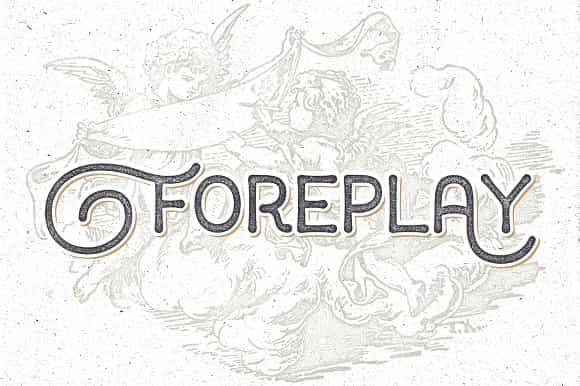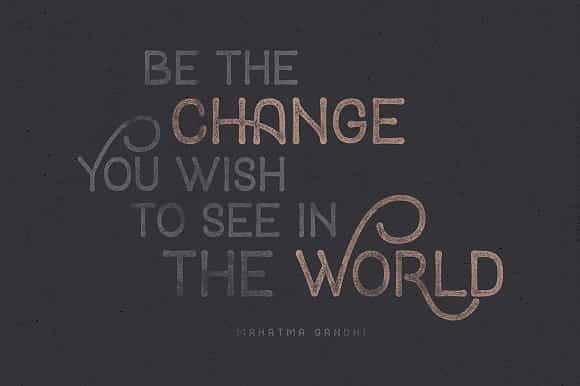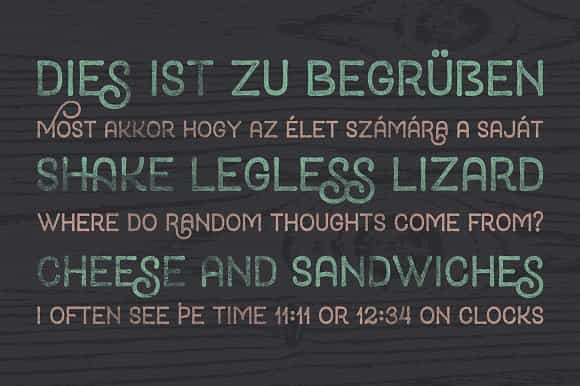
Introducing Foreplay Typeface. It is created by athal. bertht, this is a high-quality font that you can buy at creativemarket but it was great to know that today it’s free. Foreplay is a fun font that can be used in retro and vintage design styles. It is good for a poster, t-shirt design, lettering and greeting card. Moreover, Foreplay has ornamental uppercase that can be used to create an attractive and outstanding message.